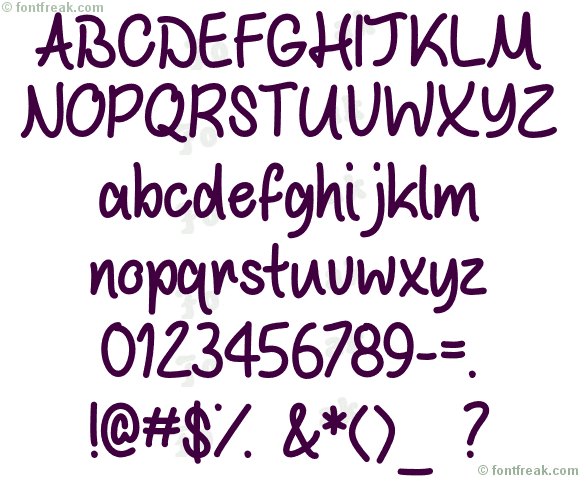
WhiteChocolateMint-Regular
White Chocolate Mint Regular
WhiteChocolateMint-Regular is a delightful handwritten font designed by Misti Hammers. This script typeface exudes a warm and inviting charm, making it perfect for a variety of creative projects. The font features a medium stroke weight with a gentle contrast, giving it a friendly and approachable appearance. Its organic, flowing lines and slight variations in thickness add a personal touch, reminiscent of casual handwritten notes. The spacing is well-balanced, ensuring readability while maintaining a playful aesthetic.
Ideal for use in wedding invitations, the WhiteChocolateMint-Regular font imparts a romantic and whimsical feel that beautifully complements elegant designs. It’s also suitable for restaurant menus, where a touch of personality can enhance the dining experience by making the menu items feel more inviting. Graphic designers can utilize this font for branding materials, such as logo designs and promotional flyers, creating a unique identity for small businesses. Additionally, content creators will find it a fantastic choice for social media graphics, where an engaging and relatable tone is essential for audience connection.
The target audience for WhiteChocolateMint-Regular includes graphic designers looking to add a handwritten flair to their projects, small business owners wanting to create memorable branding, and content creators aiming for a friendly, accessible visual style. This font stands out for its versatility and warmth, capturing attention without overwhelming the viewer. Its unique character makes it a delightful addition to any designer's toolkit. For those interested in incorporating this charming typeface into their work, the WhiteChocolateMint-Regular font free download is available, allowing creatives to explore its potential without any barriers.